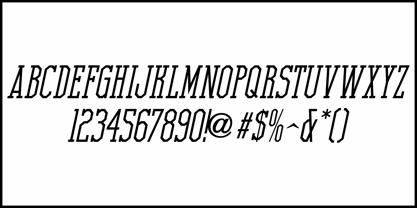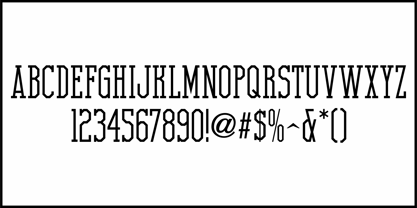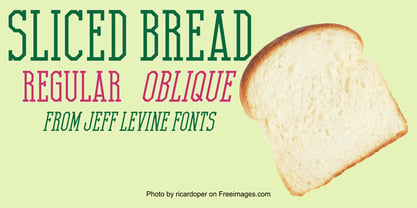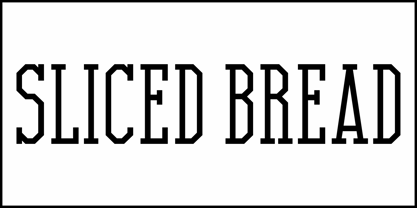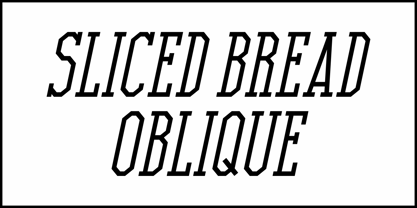
Sliced Bread JNL
Die Schriftfamilie Sliced Bread JNL wurde von Jeff Levine entworfen und von Jeff Levine veröffentlicht. Sliced Bread JNL enthält 2 Stile und Familienpaketoptionen. Mehr über diese Familie
On the cover of the Sept. 1950 issue of Sponsor Magazine was a photograph featuring a package of Arnold Fine White Bread. The tall, condensed and chamfered hand lettering on this vintage bread wrapper inspired Sliced Bread JNL, which is available in both regular and oblique versions.